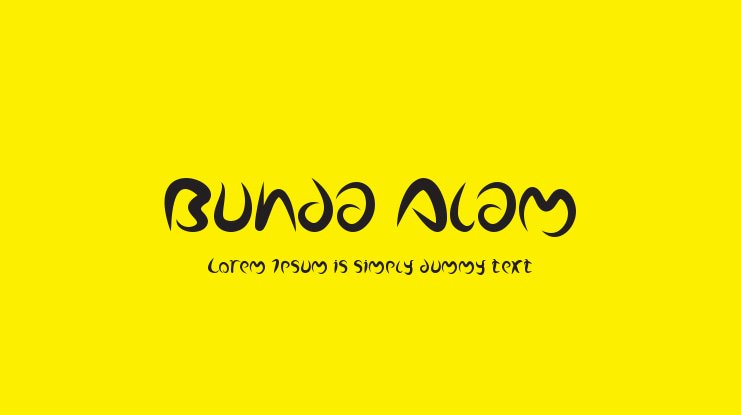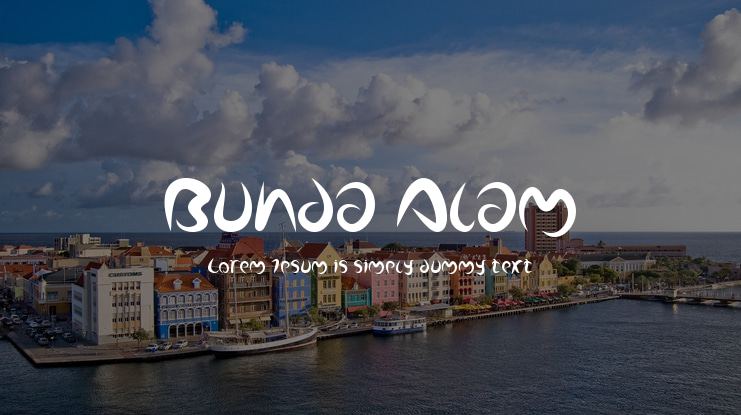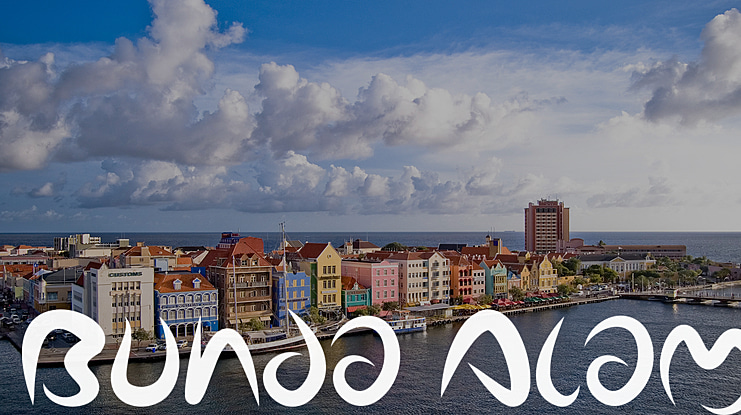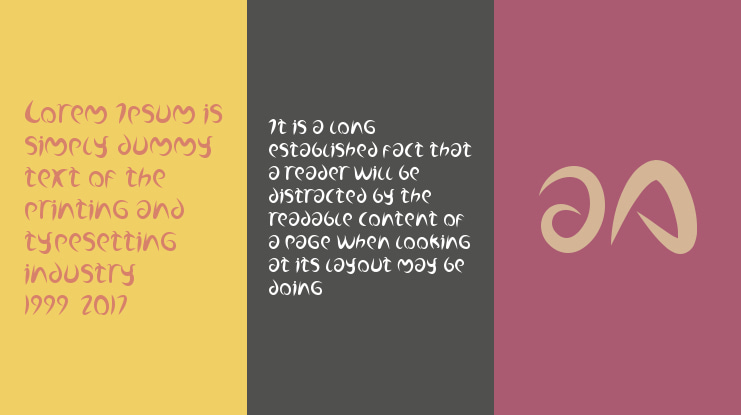
Bunda Alam Font
Bunda Alam is a typeface display that has a soft, unique, and natural character. This font is inspired by nature and the forest with a gentle and dynamic style but still elegant in each letter.
Bunda Alam is perfect for branding projects, poster designs, product packaging brochures, novel titles - or just as a style text overlay to any background image. This font is 100% free for PERSONAL USE and COMMERCIAL USE.